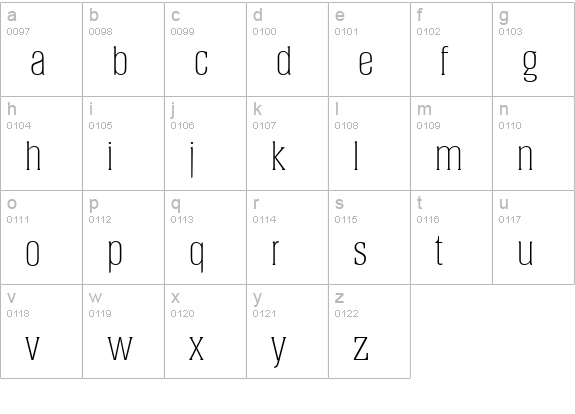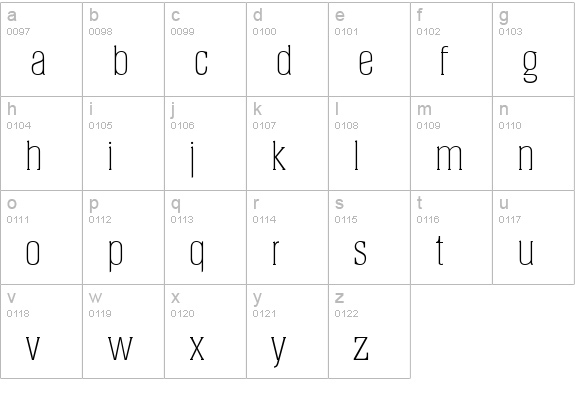
HeliumSerial-Xlight-Regular is the standard, neutral variant in the HeliumSerial typeface family \xE2\x80\x94 well suited to general body text, paragraphs, and standard typographic work.
HeliumSerial-Xlight-Regular is a sleek and modern font that exudes elegance and sophistication. With its clean lines and delicate curves, this typeface is perfect for adding a touch of class to any design project. The light weight of the font gives it a refined and airy appearance, making it ideal for use in both digital and print applications. Best of all, HeliumSerial-Xlight-Regular is available for free download at FontsMarket.com. This means that you can easily access this high-quality font without any cost, making it a fantastic option for designers looking to elevate their work without breaking the bank. Don't miss out on the opportunity to add HeliumSerial-Xlight-Regular to your font collection today!